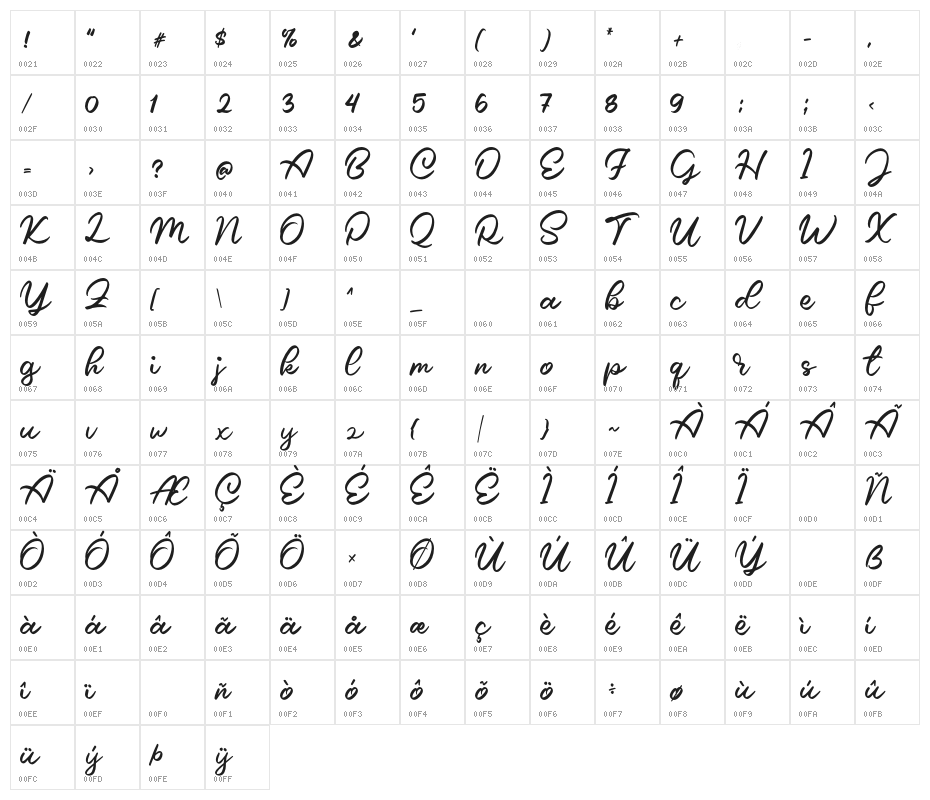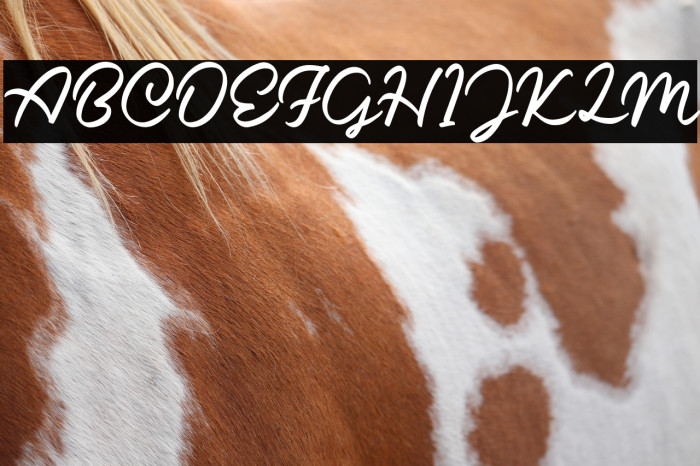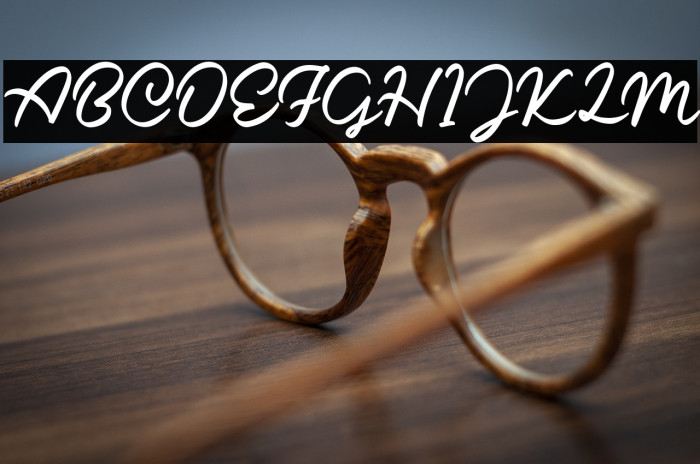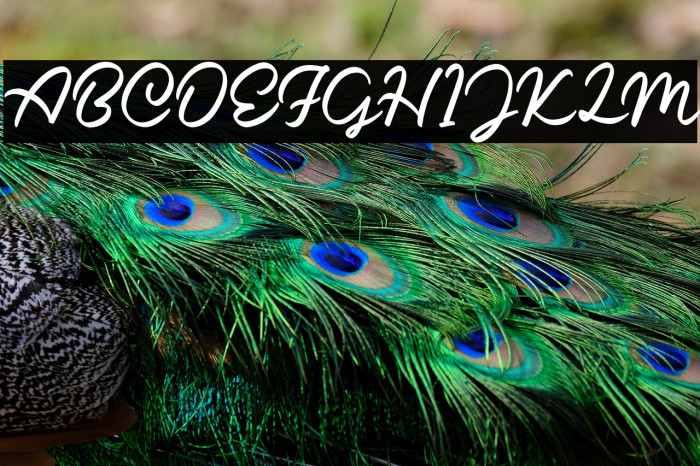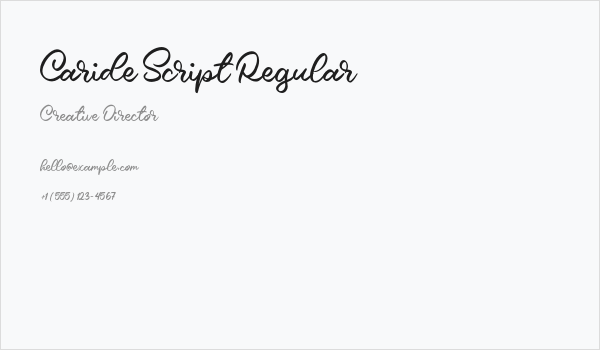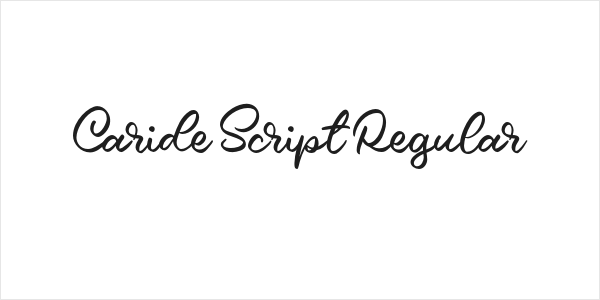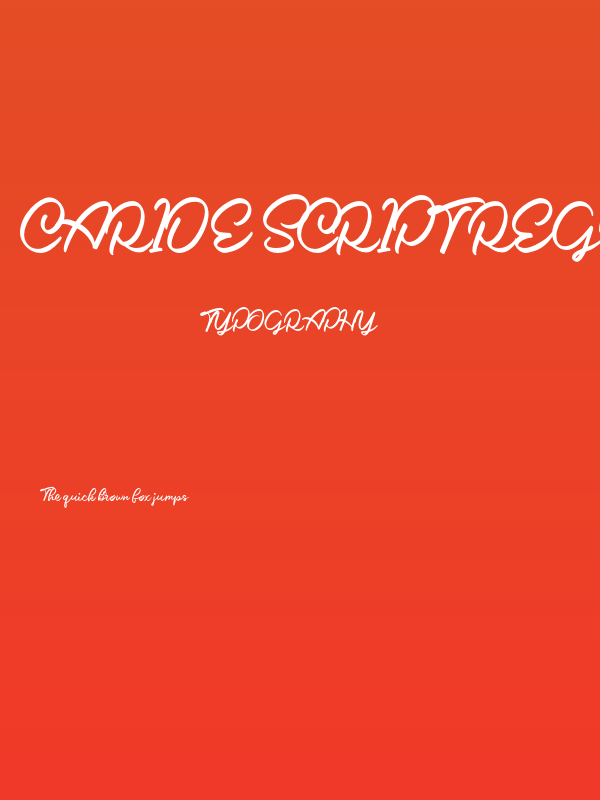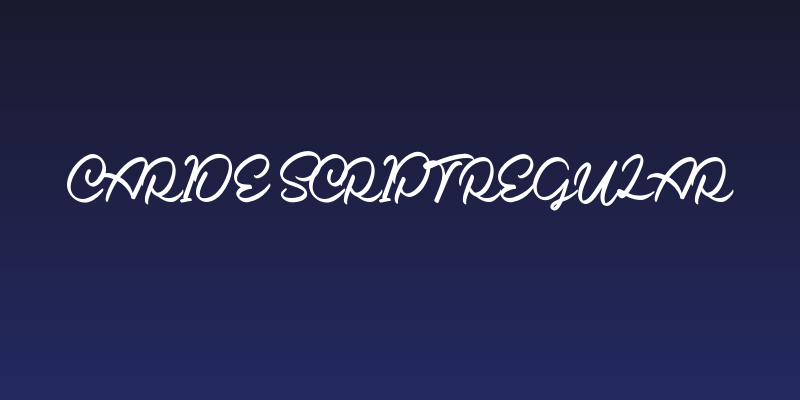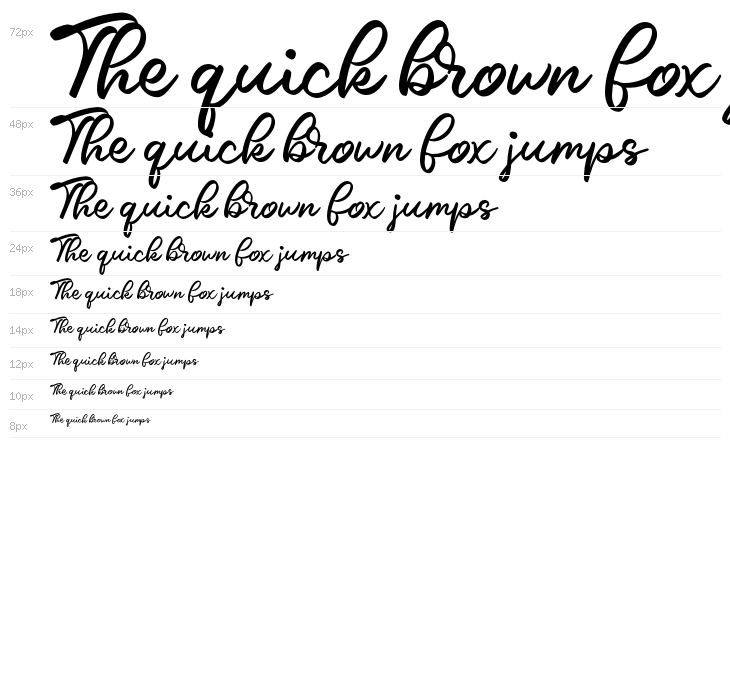
Caride Script Regular Font
Caride Script Regular Description
This script font exudes elegance and fluidity, characterized by its smooth, flowing strokes that mimic the natural motion of handwriting. The uppercase letters are gracefully connected, while the lowercase letters maintain a consistent rhythm and style. The numerals are clear and legible, complementing the overall cursive aesthetic. Special characters are thoughtfully designed to match the font's sophisticated appearance, making it suitable for a variety of applications. The font's style is both classic and contemporary, offering versatility for creative projects.
| Overall Style | Classic |
| Use Case | Logos, Invitations, Decorative text |
| Proposed Projects | Ideal for wedding invitations, greeting cards, branding, and elegant signage. |